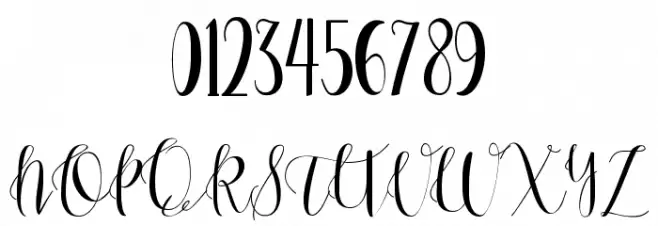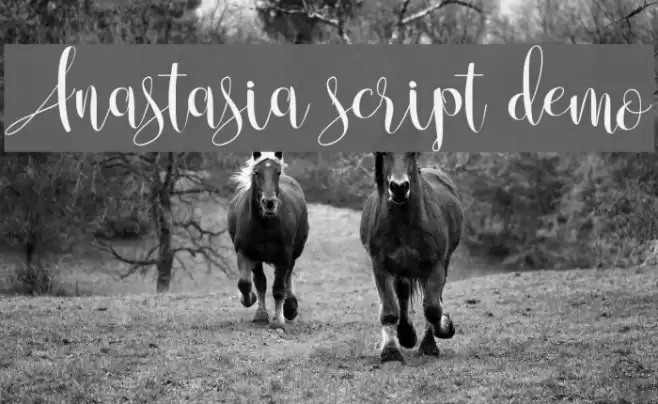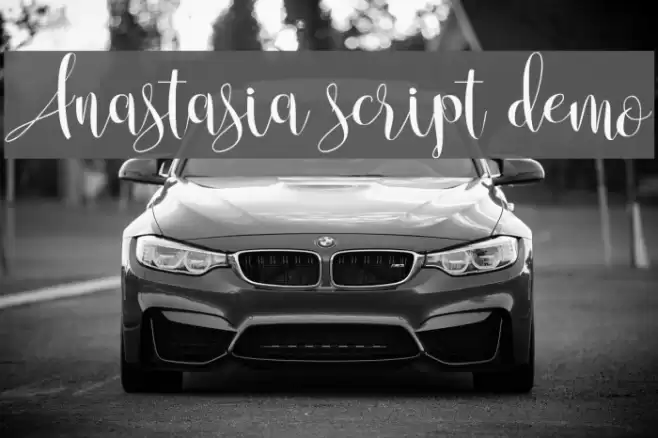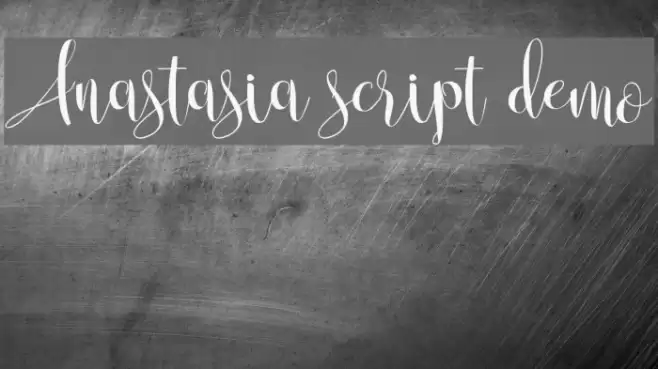
Anastasia script [demo] Font
Anastasia script [demo] Description
This elegant script font features a flowing, cursive style with intricate loops and swashes that give it a sophisticated and artistic appearance. The uppercase letters are tall and graceful, with sweeping ascenders and descenders that create a sense of movement and fluidity. The lowercase letters maintain a consistent style, complementing the uppercase with their own delicate curves and flourishes. The numerals are distinct and maintain the same elegant style, making them suitable for decorative purposes. This font's overall design is both romantic and refined, making it ideal for projects that require a touch of elegance and creativity.
An elegant script font with flowing, cursive letters and intricate swashes from Uncategorized fonts.
- Proposed Projects: Wedding invitations, greeting cards, branding, logos, and elegant packaging.
- Use Case: Logos, Invitations, Decorative text